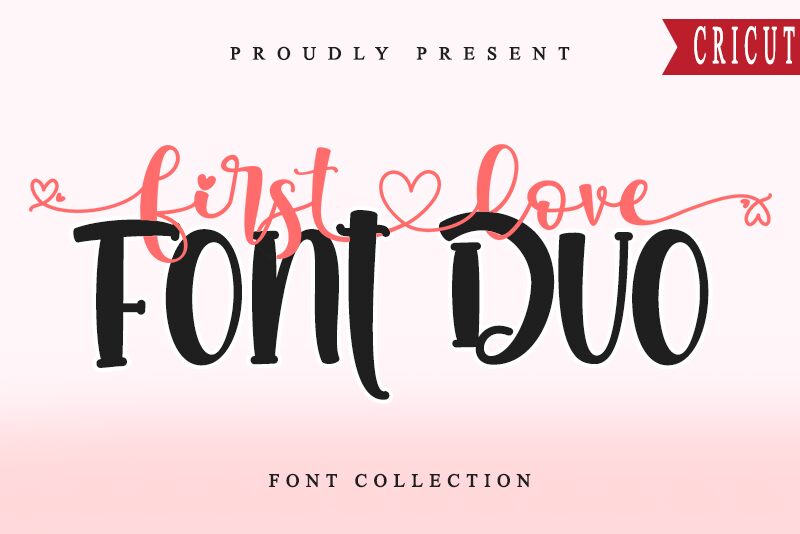
Dive into the artistry of First Love FD, a semi-bold calligraphy font crafted by the talented hands at Letterara. With its enchanting flourishes and graceful curves, this font encapsulates the whimsy of handwritten love letters, bringing a personal touch to every design.
Ideal for wedding invitations, branding, and editorial projects, First Love FD is versatile enough to add romance to any creative endeavor. Its distinctive charm ensures that your work will stand out with an air of sophistication and heartwarming elegance.
Embrace the allure of First Love FD and let your designs speak from the heart.